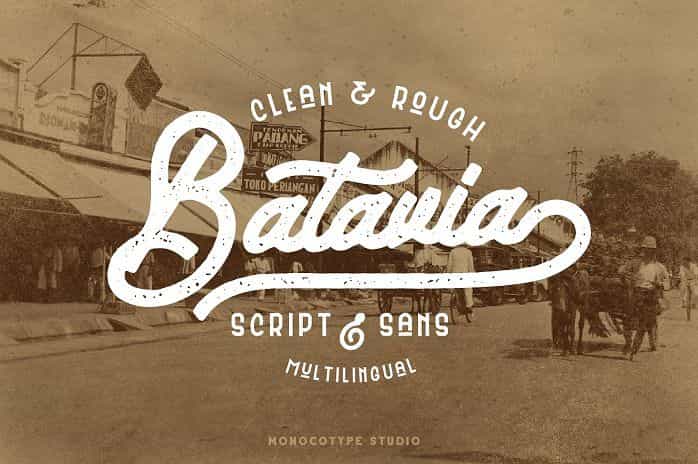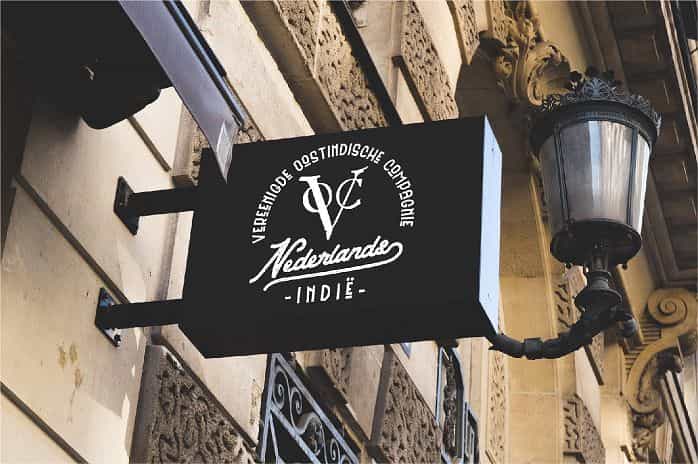
Here is the Batavia Script & Sans Font. Batavia Typeface was made by hand and is the result of a concept that came from Batavia, which now we know as Jakarta. Besides Script and Sans the font that goes well together to create a vintage mood is also included. It can be used in different purposes: lettering and logotype, labels, t-shirts, product packaging, invitations, advertising and any important text in design.